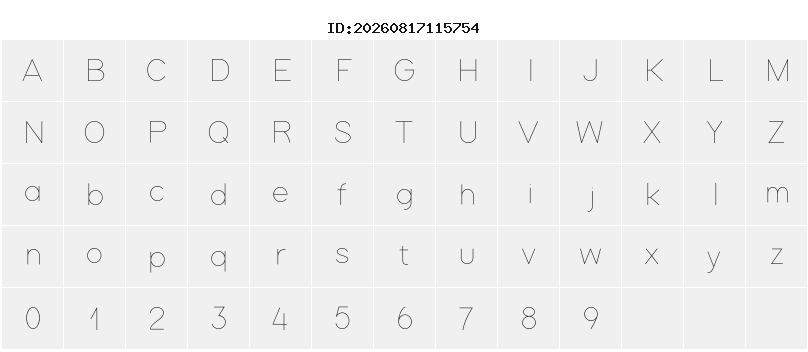
About SoftLine.otf
SoftLine.otf is a modern, elegant sans-serif font designed for ultimate readability and visual harmony. Perfect for branding, headlines, web design, and print materials.